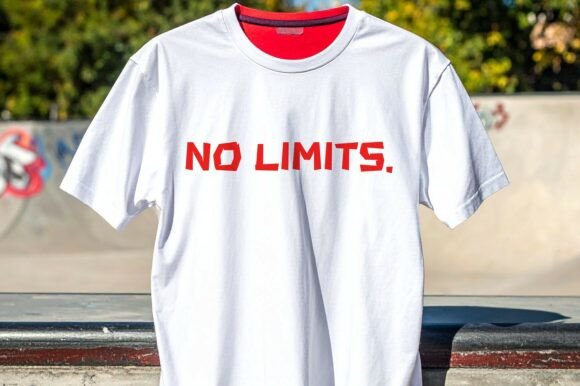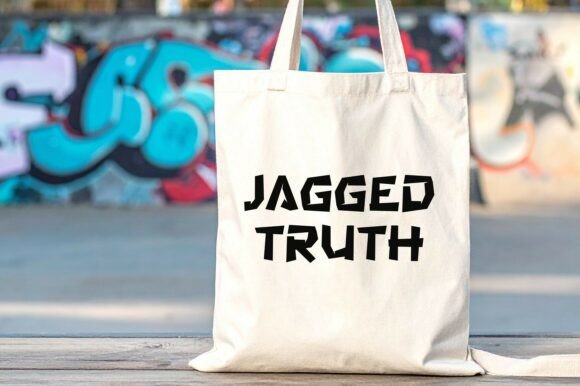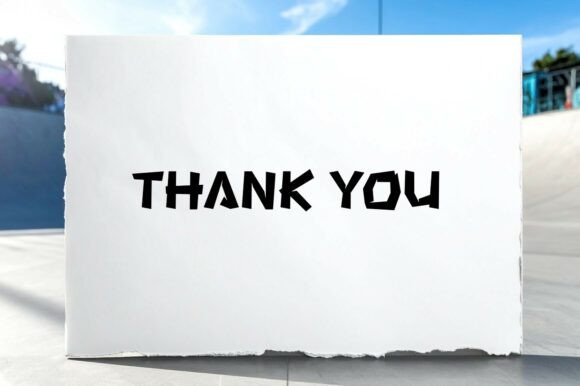
Introducing Art Paper: The Ultimate Urban Display Font
Are you tired of using the same old fonts in your designs? Look no further than Art Paper, a powerful and contemporary display font that’s sure to make a statement. With its raw, cut-out aesthetic and urban edge, this font is perfect for designers and crafters who want to add a touch of grit and rebellion to their work.
The Inspiration Behind Art Paper
Art Paper’s design is inspired by the raw, unapologetic look of hand-torn paper and rough-cut stencils. Its strong, uppercase letterforms feature distinctive, irregular edges that give it a unique, almost handmade appearance. This font is all about embracing the imperfections and irregularities of handmade art, and using them to create a sense of assertive confidence and artistic rebellion.
Key Features of Art Paper
• Comprehensive character set: Art Paper includes a full set of uppercase letters, numerals, and essential punctuation, ensuring that you have everything you need to create bold, eye-catching designs.
• Rugged, authentic character: Every letterform in Art Paper has been meticulously designed to maintain its rugged, authentic character, giving your designs a genuine, handmade feel.
• Urban edge: Art Paper’s raw, cut-out aesthetic and urban edge make it perfect for designs that demand a strong, modern aesthetic with a touch of grit.
Perfect for Bold, Unconventional Designs
Art Paper is the perfect font for designers and crafters who want to create bold, unconventional designs that make a statement. Whether you’re working on a streetwear branding project, a protest art piece, or an alternative music graphic, this font has the perfect blend of attitude and sophistication.
Example Use Cases
• Streetwear branding: Use Art Paper to create bold, eye-catching logos and graphics for your streetwear brand, such as the example below: NO LIMITS t-shirt example.
• Protest art: Art Paper’s raw, rebellious aesthetic makes it perfect for protest art and activist designs.
• Alternative music graphics: Use Art Paper to create bold, attention-grabbing graphics for alternative music artists, such as album covers, posters, and flyers.
Why Choose Art Paper?
So why choose Art Paper over other display fonts? Here are just a few reasons:
• Unique aesthetic: Art Paper’s raw, cut-out aesthetic and urban edge set it apart from other display fonts.
• High-impact presence: Art Paper’s strong, uppercase letterforms and distinctive edges make it perfect for designs that need to make a bold statement.
• Flexibility: Art Paper includes a comprehensive character set, making it suitable for a wide range of design projects.
Art Paper is a powerful and contemporary display font that’s perfect for designers and crafters who want to add a touch of grit and rebellion to their work. With its raw, cut-out aesthetic and urban edge, this font is sure to make a statement in any design project. Whether you’re working on a streetwear branding project, a protest art piece, or an alternative music graphic, Art Paper is the perfect choice.